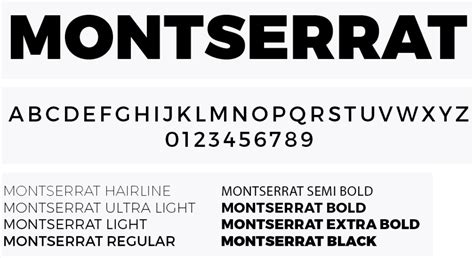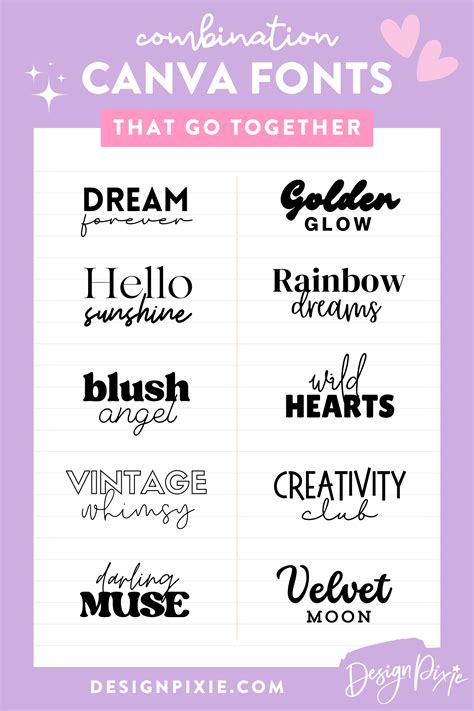
Best Canva Fonts for Modern Designs
Readers, have you ever struggled to choose the perfect font for your Canva designs? Do you feel overwhelmed by the vast selection of fonts available, unsure which ones will truly elevate your creations? You're not alone! Selecting the right font can make or break your design, especially when aiming for a modern aesthetic. I've delved deep into the world of fonts, analyzed countless designs, and discovered the **best Canva fonts for modern designs**. Let's explore these fonts and discover how they can transform your creative endeavors.
Understanding Modern Design Trends
Before diving into specific fonts, let's first define what constitutes a modern design. Modern design emphasizes clean lines, minimalist aesthetics, and a focus on functionality. It often features contemporary color palettes, geometric shapes, and a sense of simplicity.
To achieve a modern design, you need fonts that complement these elements. Fortunately, Canva offers a vast library of fonts that cater to this aesthetic. In this article, we'll explore a curated list of these fonts, analyzing their characteristics and suitability for different types of projects.
Essential Font Considerations
When selecting fonts for your designs, consider their following key characteristics:
Font Typefaces
There are several major typeface categories, each with unique aesthetics. Understanding these categories is crucial for choosing fonts that align with your design goals.
Here are some common typeface categories:
- Serif: Fonts with small decorative strokes (serifs) at the ends of letters, often associated with traditional and formal designs.
- Sans-Serif: Fonts without serifs, known for their clean and modern appearance, ideal for digital interfaces and contemporary designs.
- Script: Fonts resembling cursive handwriting, adding elegance and personality, but can be challenging to read in large blocks of text.
- Display: Fonts with bold and striking designs, used sparingly for headlines, logos, or to make a statement.
- Monospace: Fonts where each character occupies the same width, often used for coding or technical documents.
Font Weight
Font weight refers to the thickness of the font. It influences the perceived heaviness or lightness of the text.
- Light: Thin and delicate, ideal for subtle accents or large blocks of text.
- Regular: The standard weight, often used for body text.
- Bold: Thick and strong, used for headlines, titles, or to emphasize specific words.
- Black: Ultra-bold, reserved for impactful statements or for adding a strong visual element to a design.
Font Style
Font style refers to additional variations within a typeface. Common style variations include:
- Italic: Slanted letters, adding a touch of elegance or visual interest.
- Bold Italic: A combination of bold weight and italic style, creating a more pronounced visual impact.
- Regular: The standard style, without any additional modifications.
Font Pairing
Font pairing, or combining different fonts, requires careful consideration. The goal is to create a visually harmonious combination that complements the overall design aesthetic.
When pairing fonts, consider the following tips:
- Contrast: Create visual interest by pairing fonts with contrasting styles, such as a serif font with a sans-serif font.
- Balance: Ensure that the paired fonts maintain a sense of balance in terms of weight, size, and overall visual impact.
- Purpose: Consider the purpose of the design when deciding upon font pairings. For example, a formal document might require a more traditional font combination, while a casual design could benefit from a more playful pairing.
Top Canva Fonts for Modern Designs
Now that we have a foundational understanding of font characteristics, let's explore some specific Canva fonts that excel in creating modern designs.
1. Montserrat
Montserrat, a highly versatile sans-serif font, has become a modern design staple. Its clean lines, geometric shapes, and open letterforms make it ideal for everything from headlines to body text. Montserrat offers a range of weights, from light to black, enabling you to create a harmonious hierarchy within your designs.
2. Open Sans
Open Sans, another popular sans-serif font, is known for its legibility and exceptional readability. It's an excellent choice for body text, ensuring that your content is easily accessible and enjoyable to read. Open Sans also comes in a variety of weights, making it suitable for various design elements.
3. Lato
Lato, a geometric sans-serif font, possesses a clean and modern aesthetic. Its slightly rounded letterforms give it a friendly and approachable feel. Lato's versatility allows it to be used for both headlines and body text, making it a popular choice for a wide range of projects.
4. Roboto
Roboto, a geometric sans-serif font, was designed explicitly for digital interfaces. Its clean lines and excellent legibility make it an ideal font for web design, mobile apps, and other digital content. However, Roboto can also be effectively used in printed designs, enhancing their modern feel.
5. Playfair Display
While not strictly a sans-serif font, Playfair Display is a modern serif font that adds a touch of elegance and sophistication to your designs. Its contrasting thick and thin strokes create a visually appealing effect. Playfair Display is particularly effective for headlines, titles, or when you want to add a touch of refinement to your project.
Choosing the Right Font for Your Project
With so many excellent choices available, the key is to choose a font that aligns with your project's specific requirements and aesthetic. Consider the following factors:
Project Type
- Website: Choose fonts that are legible and comfortable to read on screens.
- Logo: Select a font that is memorable and impactful, conveying the essence of your brand.
- Brochure: Opt for fonts that are both aesthetically pleasing and easy to read in printed form.
- Social Media: Consider fonts that are visually appealing and appropriate for the platform.
Target Audience
Think about the audience you're trying to reach and choose fonts that resonate with their preferences. For example, a younger audience might appreciate more playful and trendy fonts, while a more professional audience might prefer fonts that exude authority and sophistication.
Brand Identity
Ensure that the font you choose aligns with your brand's overall identity. If your brand is known for its modern and minimalist aesthetic, select fonts that embody these qualities. If your brand is more traditional, a serif font might be a better fit.
Overall Design Aesthetic
Consider the overall design aesthetic of your project. If you're aiming for a sleek and modern look, select a sans-serif font with clean lines. If you're going for a vintage or retro vibe, choose a font with a more traditional style.
Finding the Right Font on Canva
Canva offers a vast font library, but finding the perfect font can be overwhelming. Here are some tips to streamline your search:
Use Search Filters
Canva provides filters to narrow down your search by typeface, category, and style. This can significantly reduce the number of options and help you quickly find fonts that meet your criteria.
Explore Font Collections
Canva provides curated font collections based on themes or styles. For example, you can browse collections specifically designed for modern designs, branding, or social media.
Experiment with Font Pairing
Canva allows you to preview font combinations before committing to a specific choice. Experiment with different pairings to find combinations that complement each other and enhance your design.
Get Inspiration from Other Designs
Explore Canva's vast library of templates and designs for inspiration. See how other designers use fonts to create visually appealing and impactful designs. This can provide valuable insights into choosing the right fonts for your own projects.
FAQ Section
What fonts are best for social media posts?
For social media posts, consider using fonts that are both legible and eye-catching. Sans-serif fonts like Montserrat, Open Sans, or Lato are popular choices for their clean and modern aesthetic. You can also use bold or italic variations to add emphasis and visual interest.
How do I know if two fonts work well together?
Pairing fonts effectively requires considering their overall visual balance and harmony. Look for contrasting yet complementary styles, such as pairing a serif font with a sans-serif font. Ensure that the fonts maintain a balance in terms of weight, size, and visual impact.
Are there any free fonts available on Canva?
Yes, Canva offers a wide selection of both free and premium fonts. You can identify free fonts by looking for the "Free" label next to their names in the font library. Many free fonts are high-quality and suitable for various projects.
Selecting the right font for your Canva designs is crucial for creating a modern and impactful aesthetic. By understanding the principles of font selection and exploring the vast library of fonts available on Canva, you can elevate your designs and create stunning visual experiences that resonate with your audience. So, go forth, experiment, and find the fonts that will empower your creative journey! And remember, you can always explore more font inspiration on our website by clicking [insert link to related blog posts].